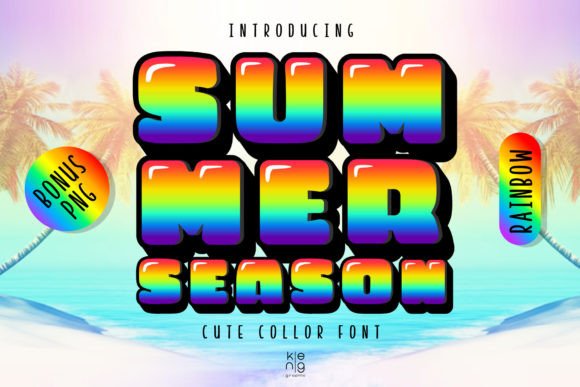
Introducing Summer Season Rainbow, the font that will add a splash of color and a dash of fun to your digital designs! This enchanting color font, brought to you by the creative minds at Keng Graphic, is a captivating blend of whimsy and boldness, making it the perfect choice for those who aren't afraid to stand out.
With its playful curves and vibrant hues, Summer Season Rainbow is guaranteed to grab attention wherever it goes. This font is a true chameleon, effortlessly adapting to a wide range of design projects, from eye-catching social media posts to vibrant movie titles, from lively comic book layouts to playful online games. Unleash your creativity and let Summer Season Rainbow work its magic, transforming your digital creations into works of art.
Picture this: your social media feed adorned with captivating posts, each one bursting with color and personality, thanks to the magic of Summer Season Rainbow. Your audience will be mesmerized by the sheer vibrancy and originality of your content, eager to engage with your brand and share your posts with the world.
Or, envision your online game coming to life with the vibrant characters and captivating UI elements, all brought to life by Summer Season Rainbow. Players will be immersed in a world of color and wonder, unable to resist the allure of your captivating game.
And let's not forget the endless possibilities for physical merchandise. T-shirts, hats, bags, and mugs adorned with Summer Season Rainbow's cheerful designs will become instant favorites, eagerly sought after by those who appreciate unique and eye-catching fashion.
With Summer Season Rainbow by your side, you'll have the power to transform ordinary designs into extraordinary creations, leaving a lasting impression on your audience. It's the perfect font for those who dare to be different, who embrace the power of color, and who aren't afraid to let their creativity shine.
So, why settle for ordinary fonts when you can have Summer Season Rainbow? Its unique style, vibrant colors, and endless versatility will elevate your digital designs to new heights, leaving your audience captivated and inspired. Embrace the magic of Summer Season Rainbow today and let your creativity flourish!